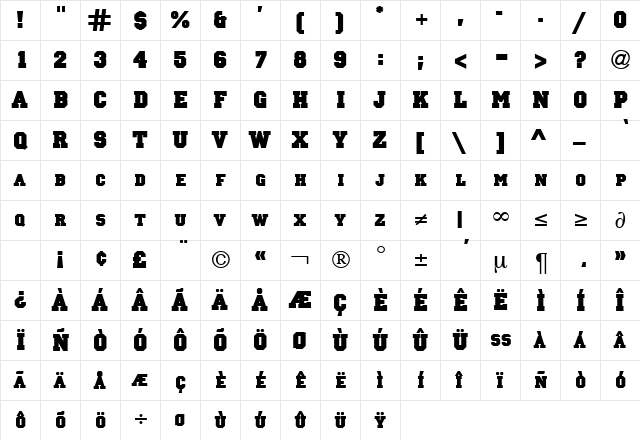
PrincipalSolid DB Regular
Design Context for PrincipalSolid DB Typeface
PrincipalSolid DB offers clean, dependable letterforms without strong stylistic allegiance, making it a practical choice for designers who need flexibility.